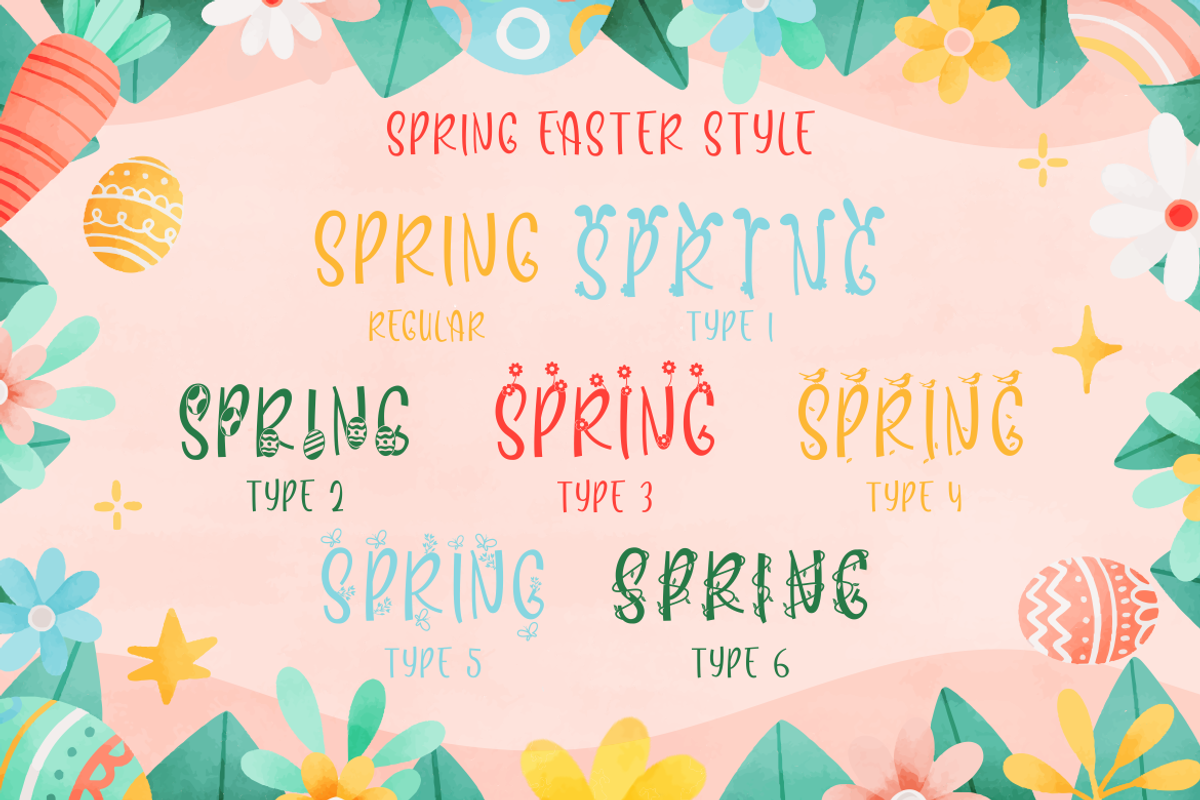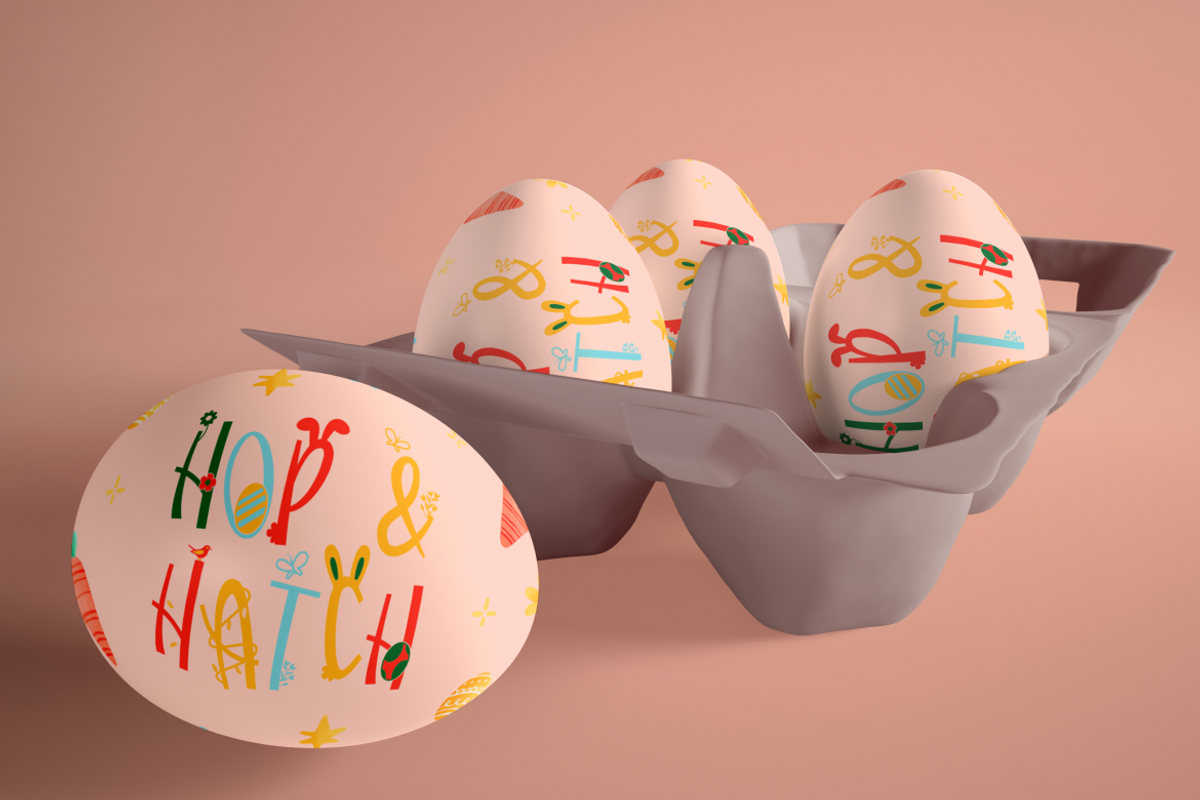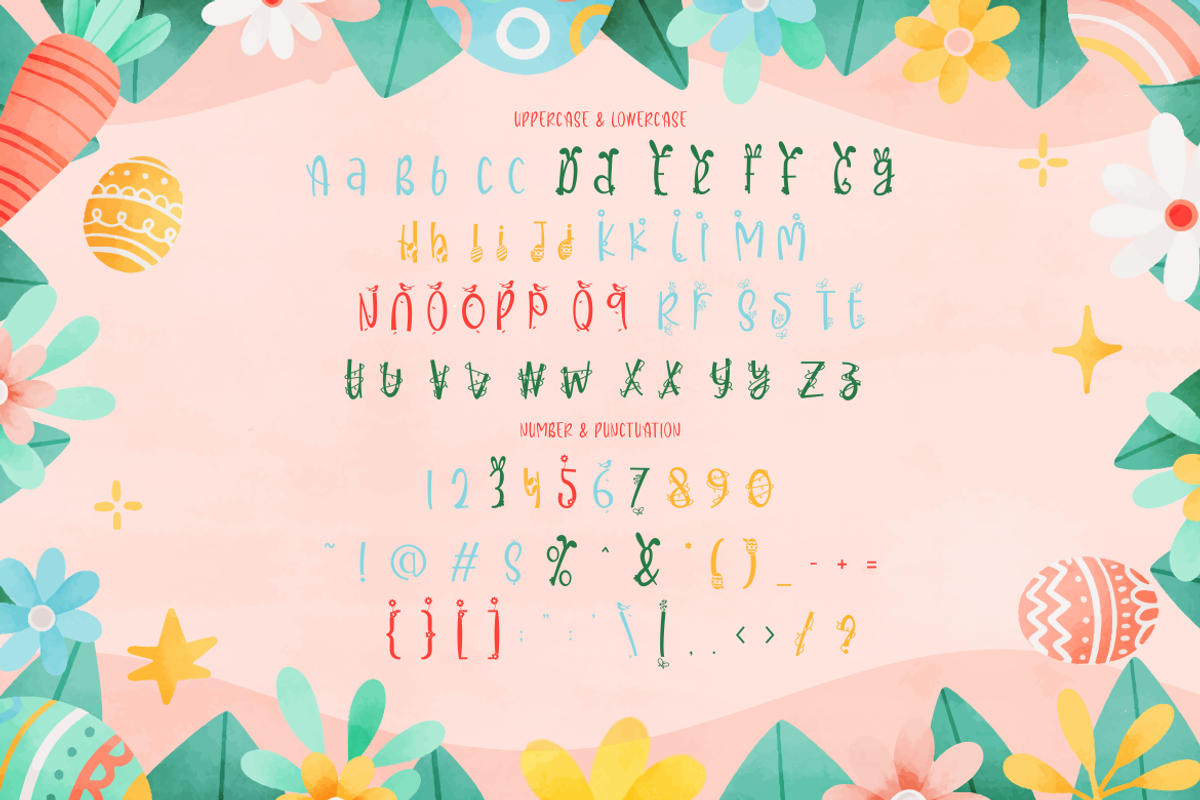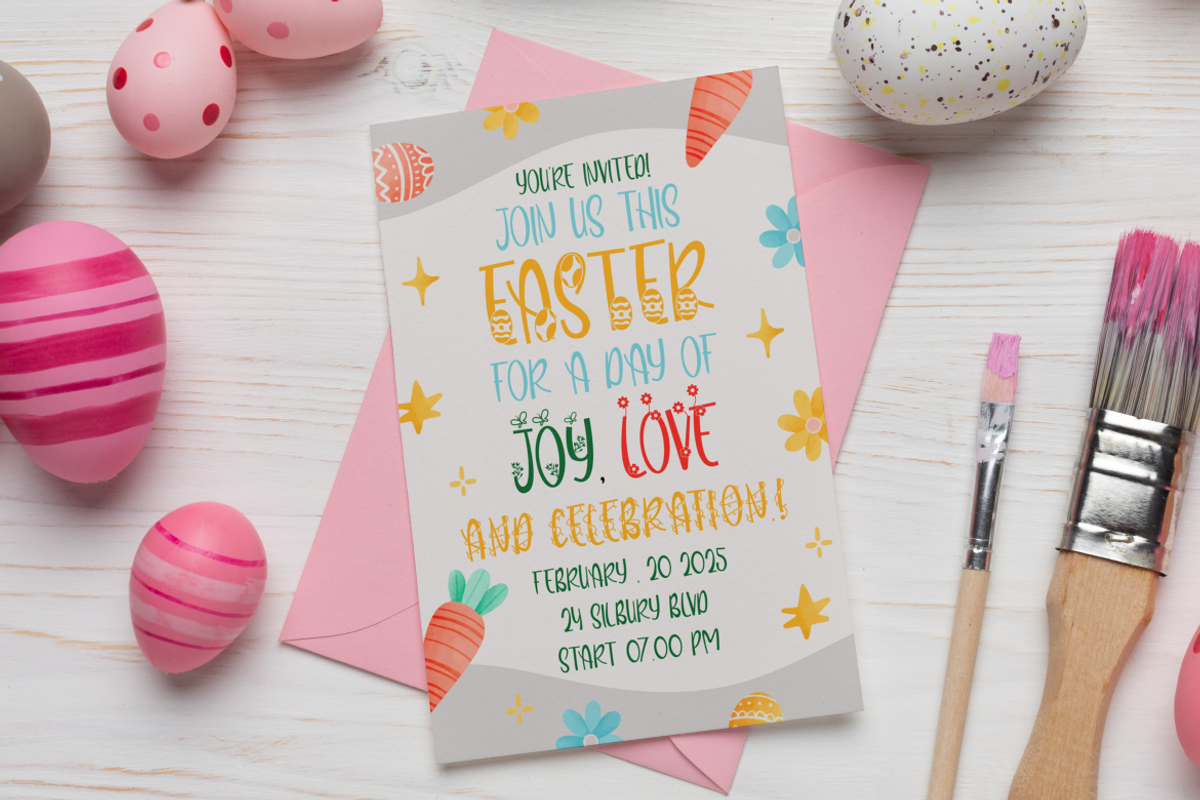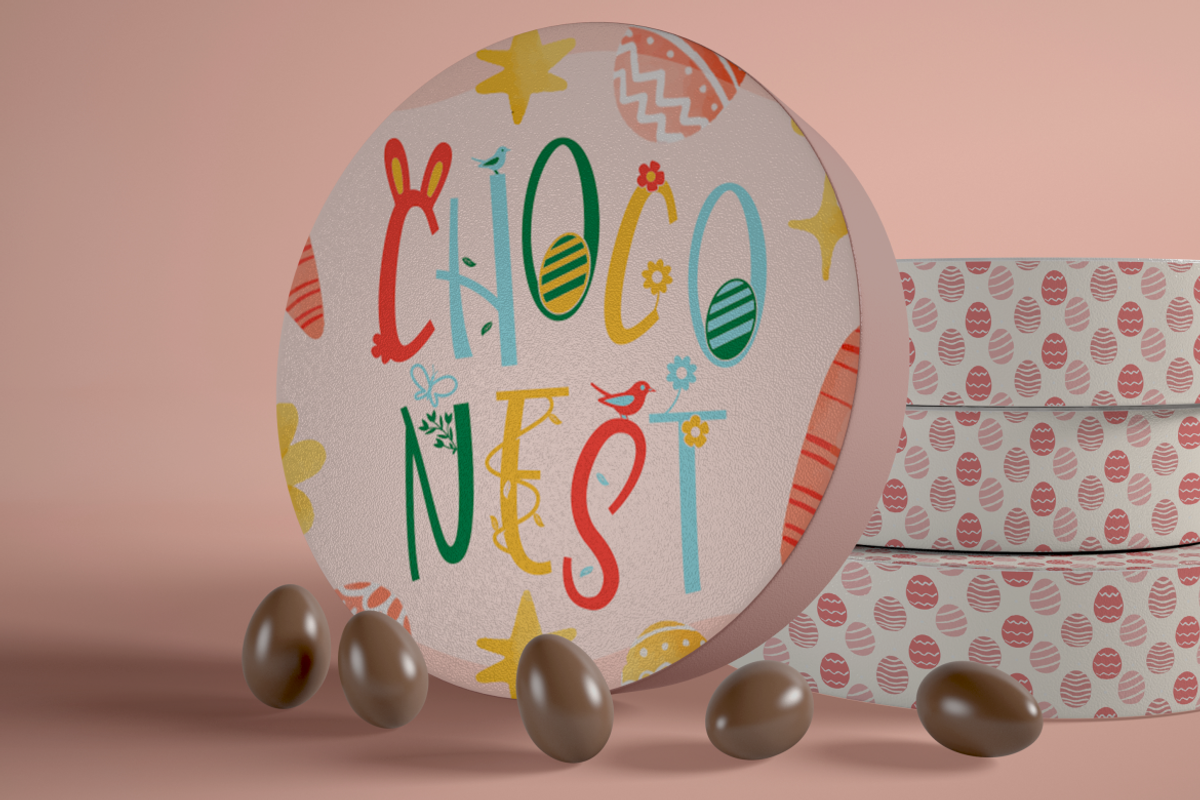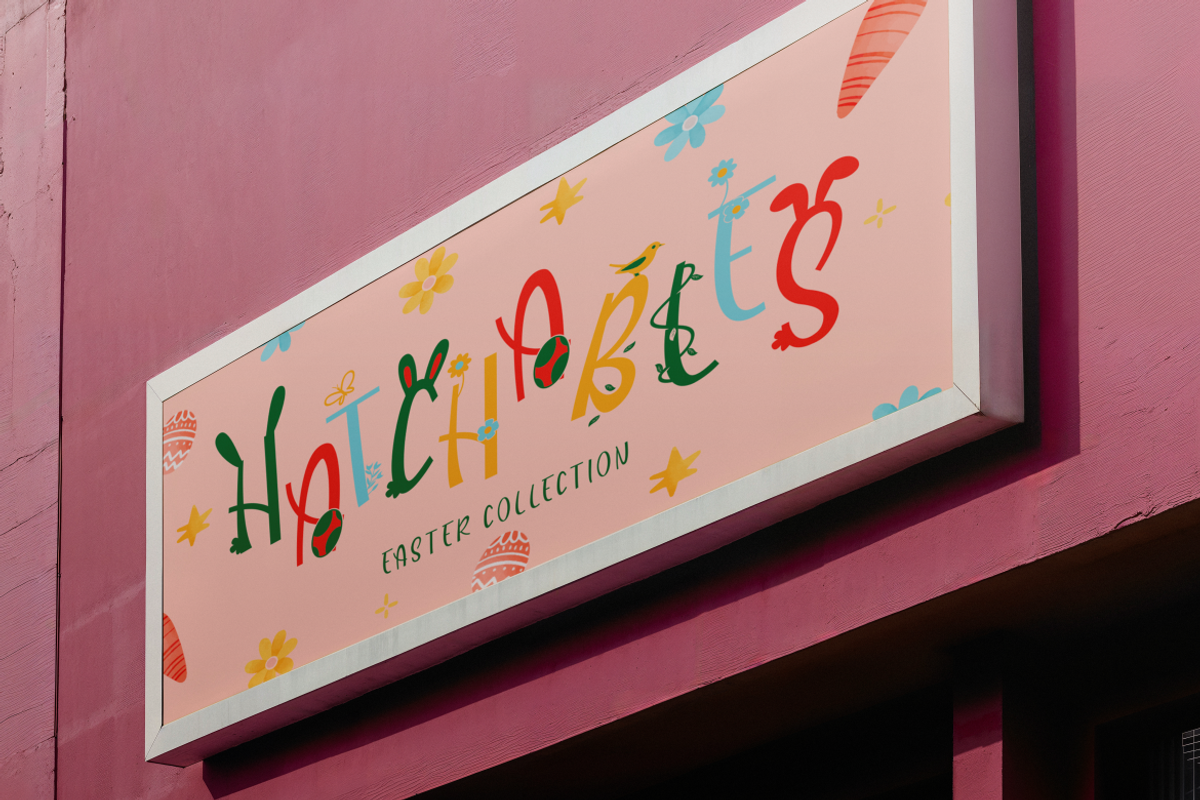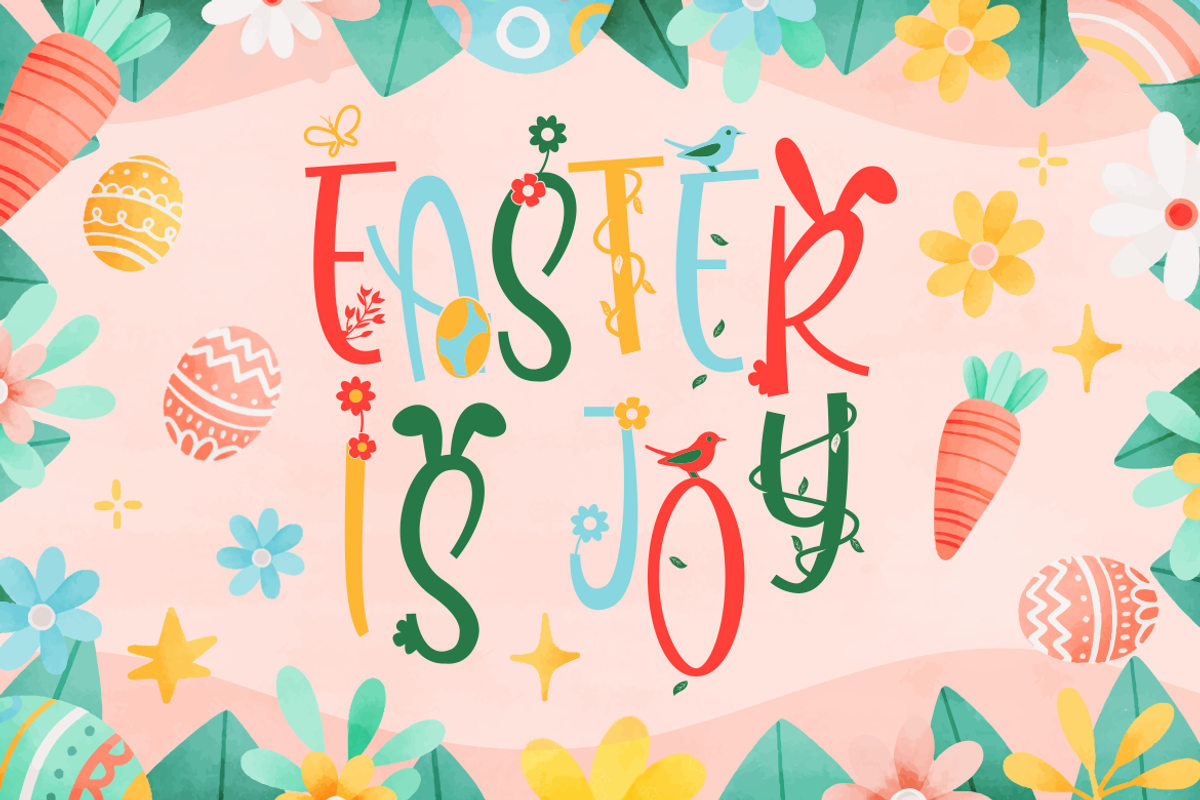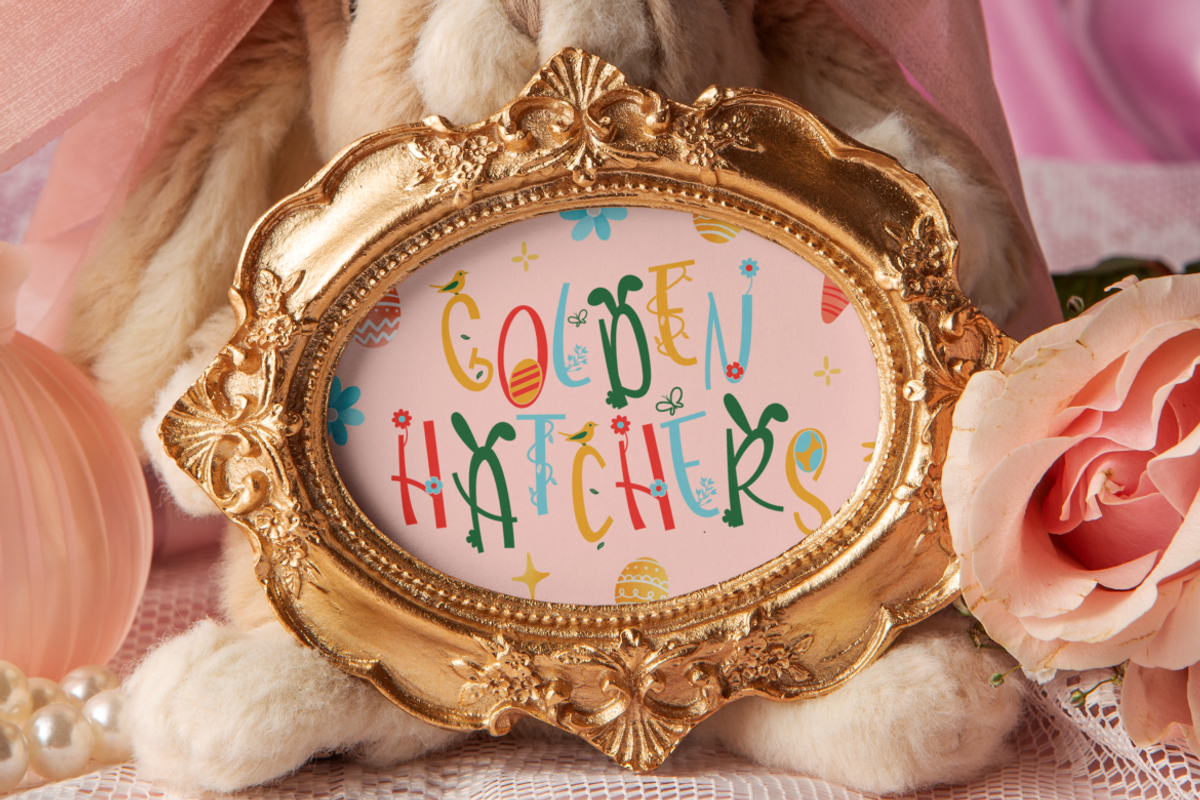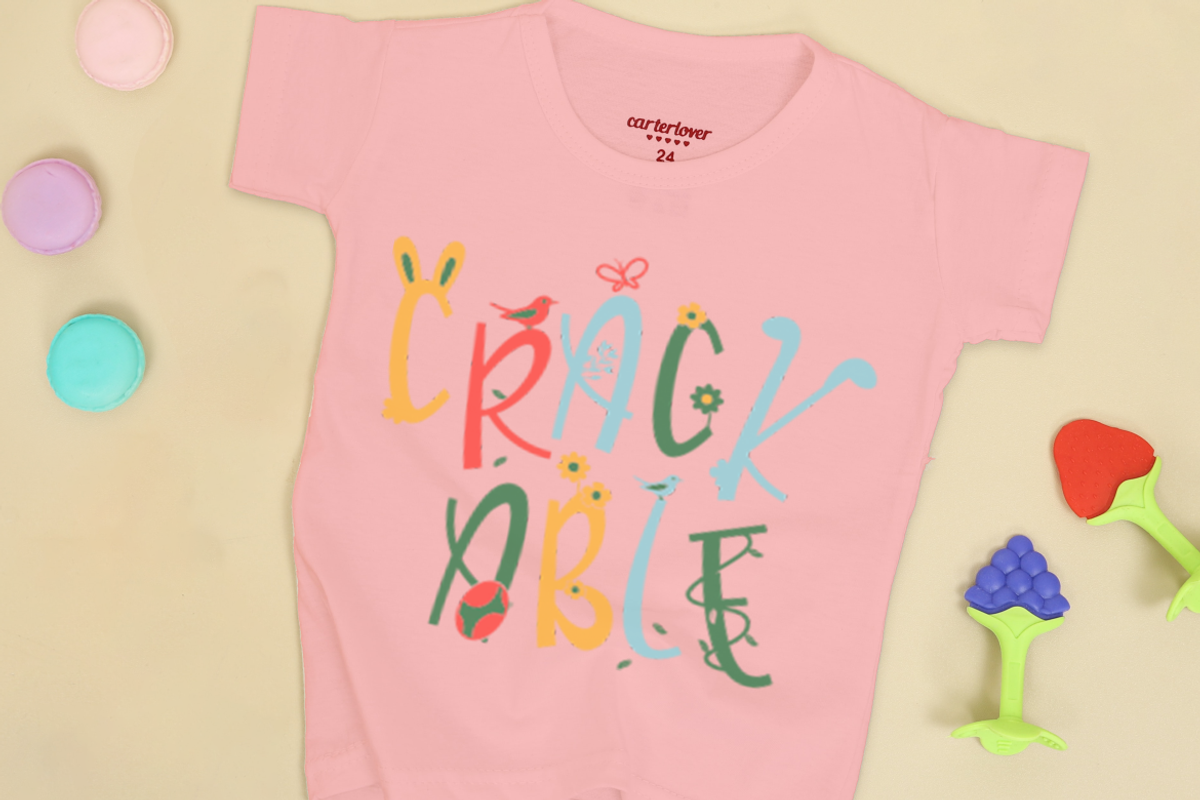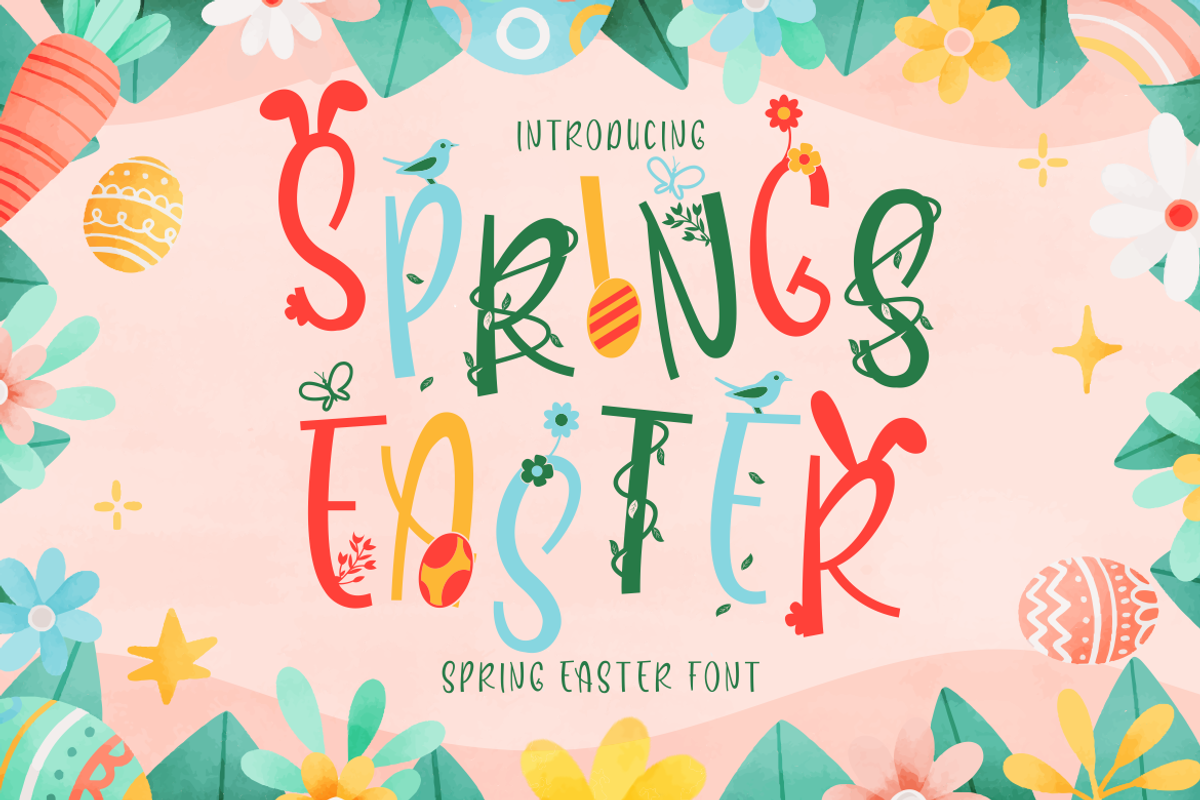
Spring Easter Font
Springs Easter is a joyful display font designed to capture the lively spirit of spring and the festive charm of Easter celebrations. Each letter is adorned with playful decorative elements like floral patterns, bunny ears, and egg-inspired shapes, making it perfect for designs that need a burst of seasonal personality. The rounded, friendly strokes give it an inviting feel, while the unique thematic details ensure your typography stands out. Its clear readability allows for versatile usage, from bold headlines to smaller decorative text.
Ideal for festive branding, party invitations, seasonal product packaging, and craft projects, Springs Easter adds a delightful touch wherever it’s used. Its charming style makes it especially suitable for children’s events, DIY decor, and social media graphics celebrating springtime. The font retains balance between playfulness and legibility, making it a go-to choice for creative designers aiming to infuse warmth and happiness into their work. Whether for posters, stickers, greeting cards, or digital promotions, Springs Easter brings your seasonal concepts to life.